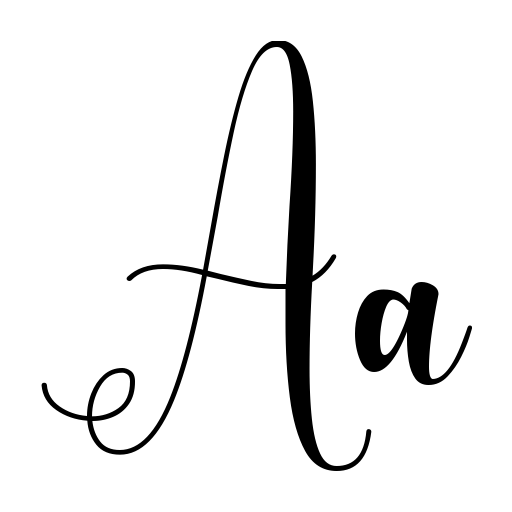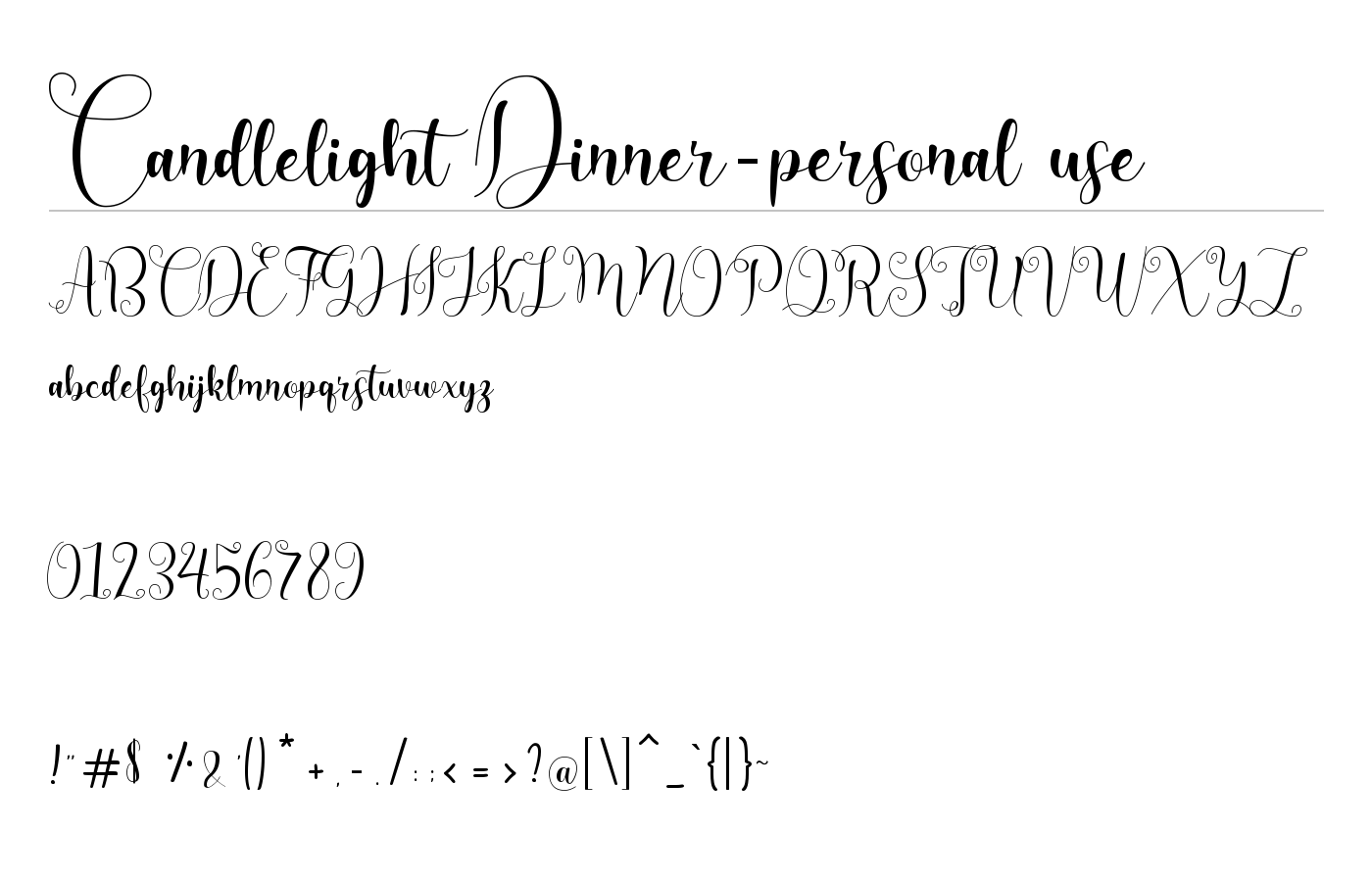
Candlelight Dinner-personal use is an elegant script font featuring delicate, flowing strokes with high contrast between thick and thin lines. Its graceful swashes and decorative uppercase letters evoke a romantic and sophisticated mood, making it perfect for wedding invitations, luxury branding, and stylish headlines where a touch of charm and refinement is desired. This font’s airy yet refined letterforms lend a personal and artistic feel that stands out in designs that aim to impress with subtle elegance.
Candlelight Dinner-personal use Font
About Candlelight Dinner-personal use Font